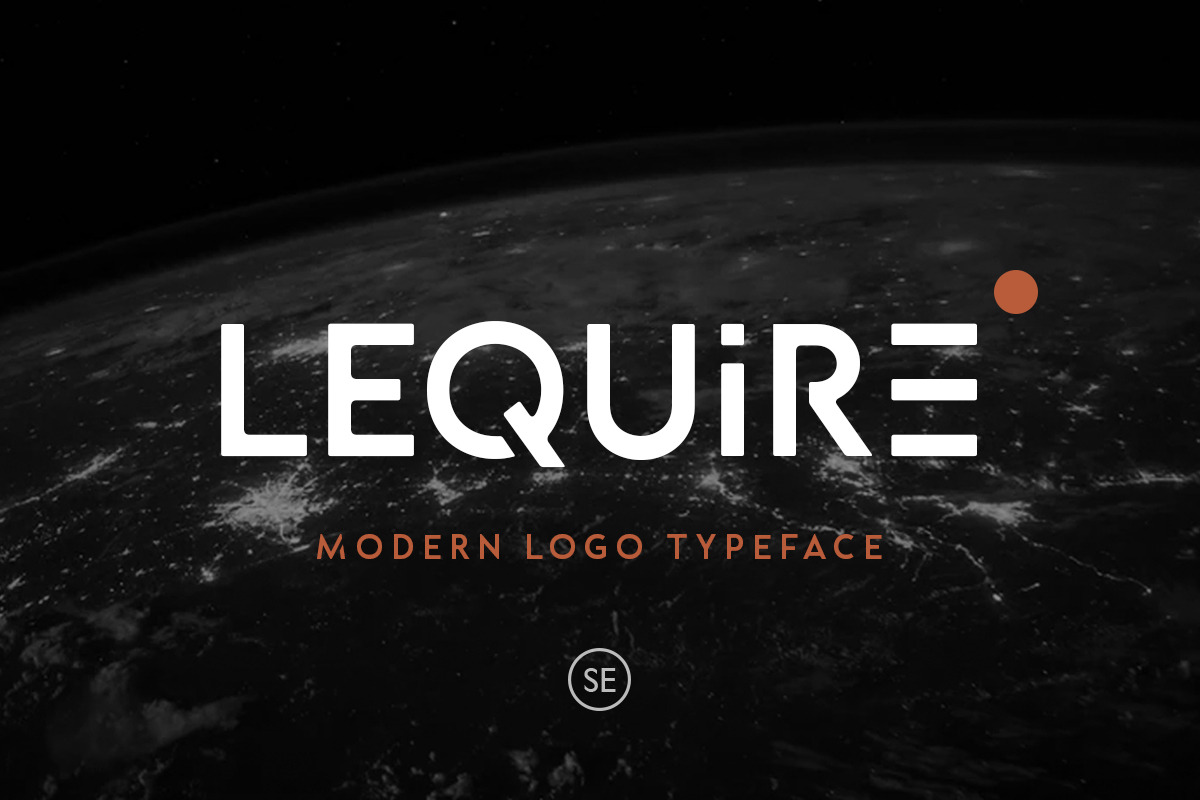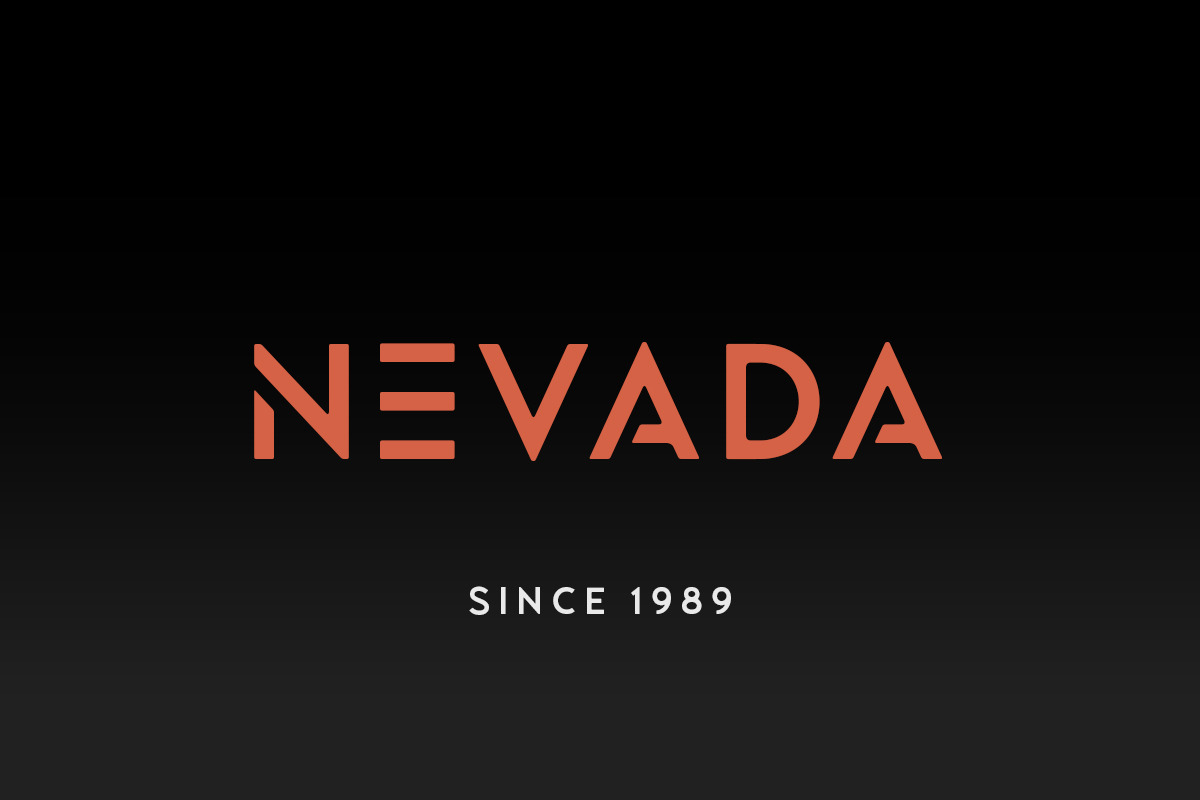
Lequire - Modern Logo Typeface
Introducing, Lequire - Modern logo typeface!
Lequire is a sans based font with unique lowercase that will make your design looks hi-tech and modern. You can use this font for any purpose, especially to make logotype. You can mix and match the uppercase and lowercase to make your logo more readable. This font also comes with outline style!